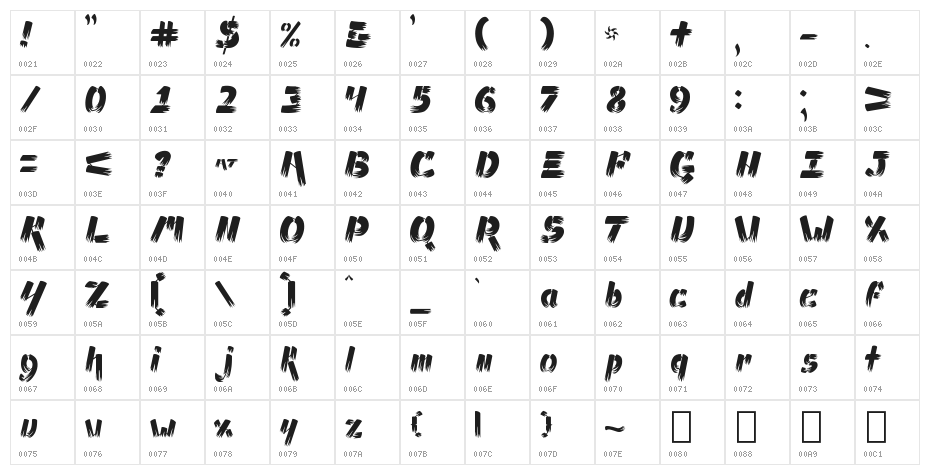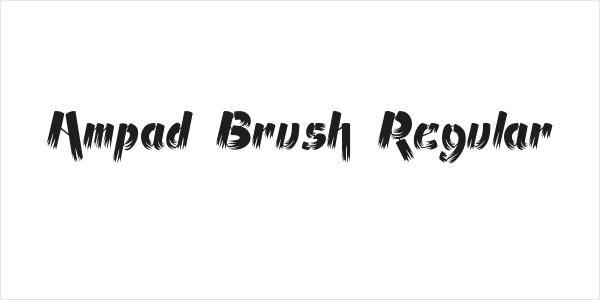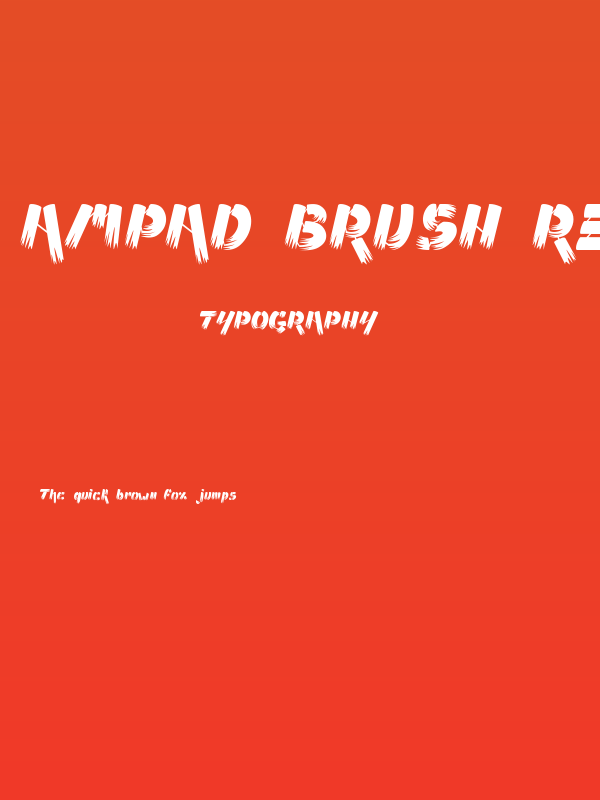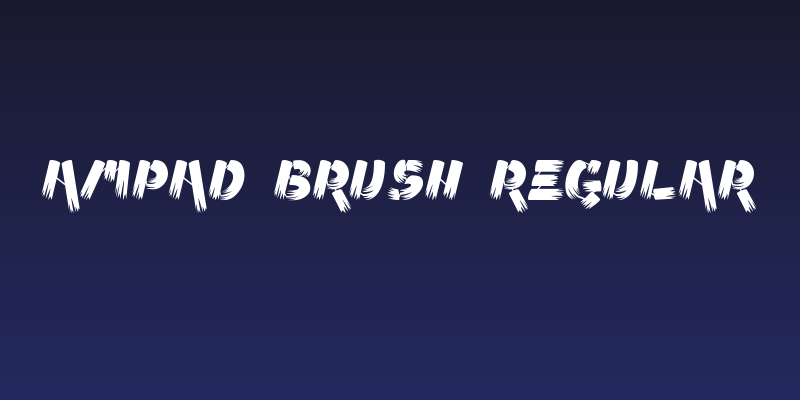
Ampad Brush Regular Font
Ampad Brush Regular Description
This font features a dynamic and energetic brush style, characterized by its bold and expressive strokes. The letters have a distinct hand-painted appearance, with irregular edges and varying thickness that give it a lively and spontaneous feel. The uppercase and lowercase letters maintain a consistent style, while the numbers and special characters complement the overall aesthetic. Its unique design makes it stand out, offering a sense of movement and creativity. The font's playful and artistic nature makes it suitable for projects that require a touch of flair and individuality.
| Proposed Projects | Ideal for posters, artistic projects, branding, and any design needing a creative and energetic touch. |